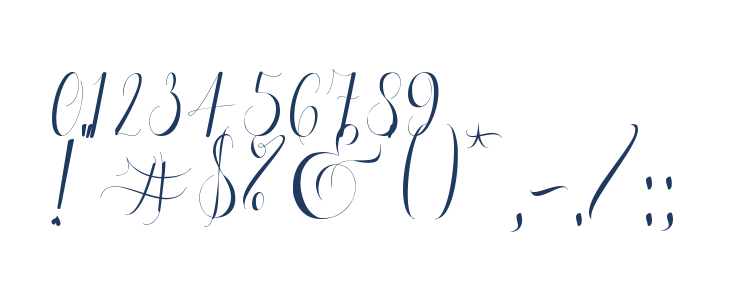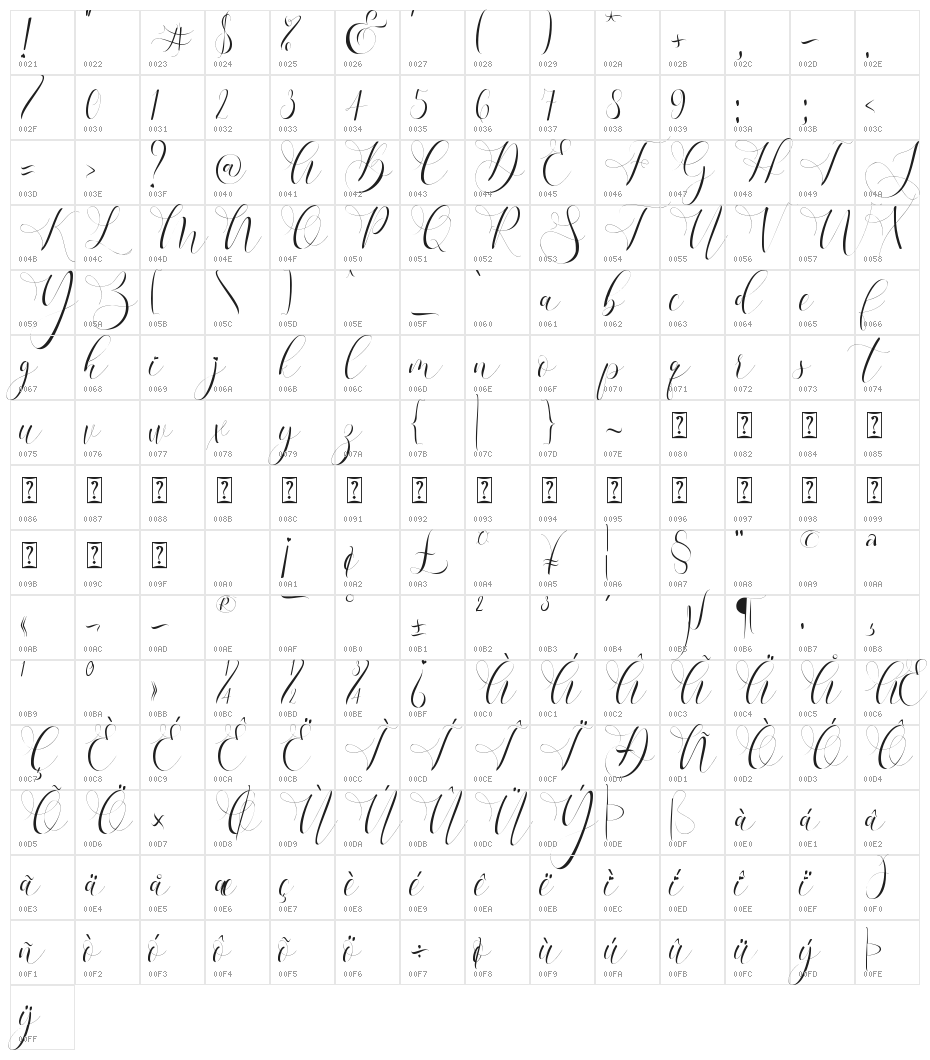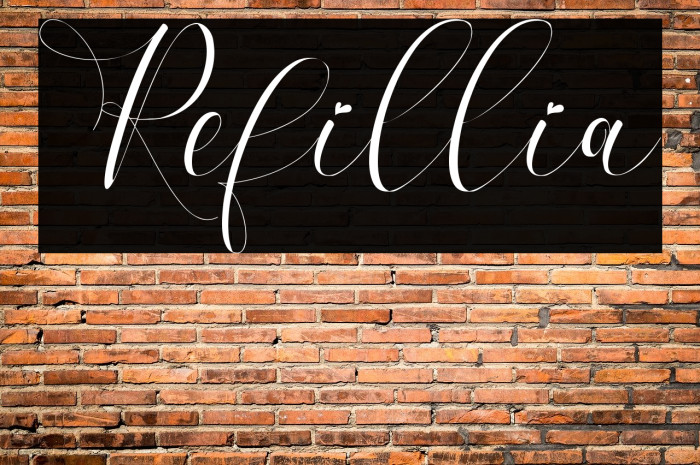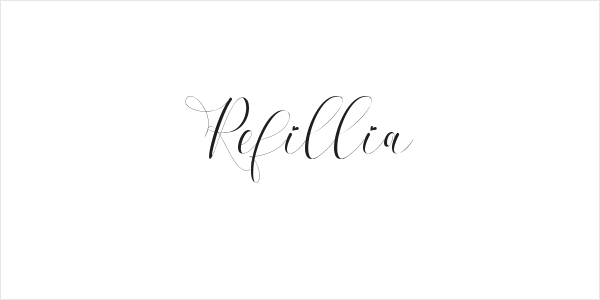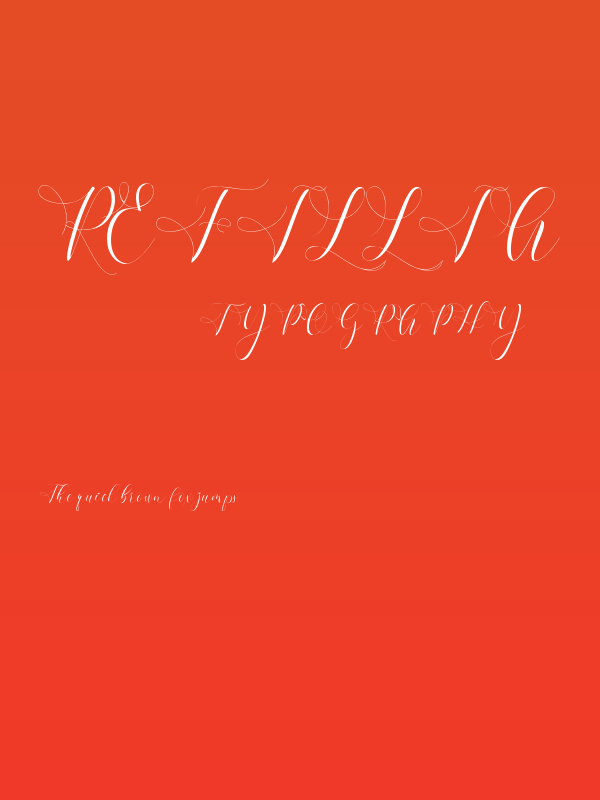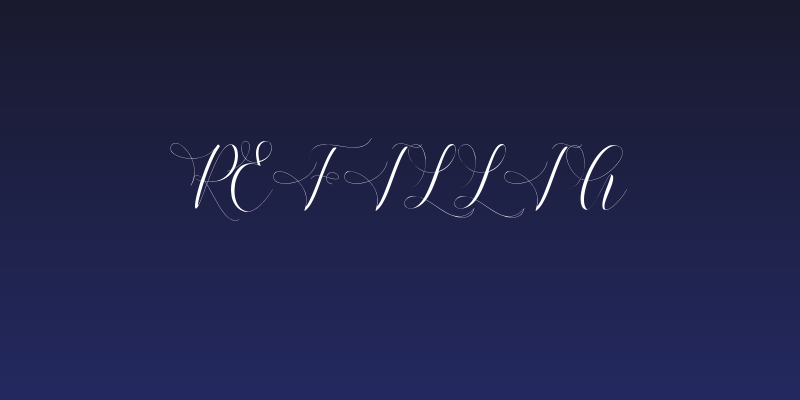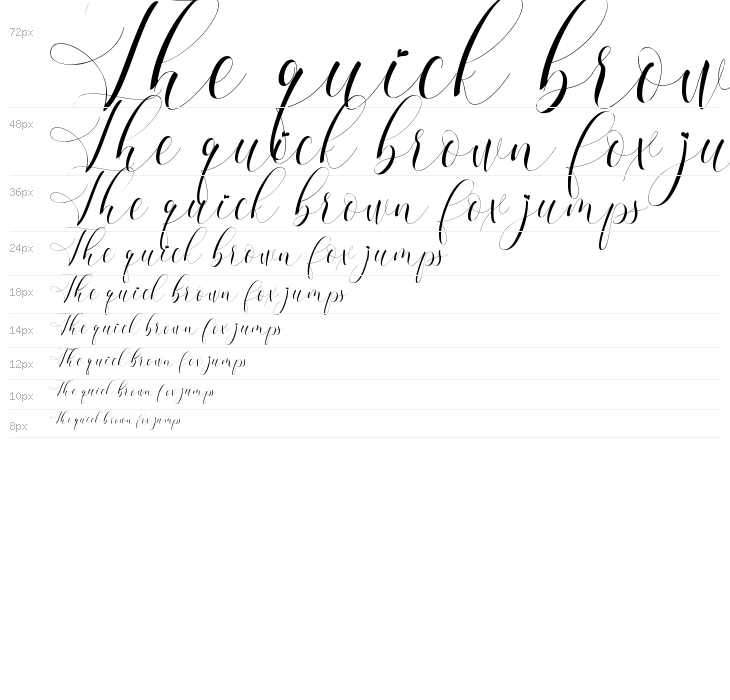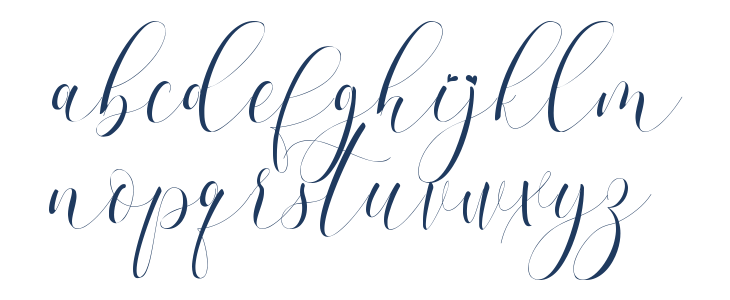
Refillia Font
Refillia Description
This elegant script font features intricate, flowing lines and delicate curves, reminiscent of classic calligraphy. Each letter is adorned with graceful swashes and flourishes, creating a sense of movement and sophistication. The uppercase letters are particularly ornate, with extended loops and decorative elements that enhance their visual appeal. The lowercase letters maintain a consistent style, offering a harmonious blend of formality and artistic flair. The numerals and special characters are designed with the same attention to detail, ensuring a cohesive look across all elements. This font is perfect for projects that require a touch of elegance and refinement.
| Overall Style | Classic |
| Use Case | Logos, Invitations, Decorative text |
| Proposed Projects | Wedding invitations, luxury branding, elegant stationery, high-end packaging, and decorative signage. |